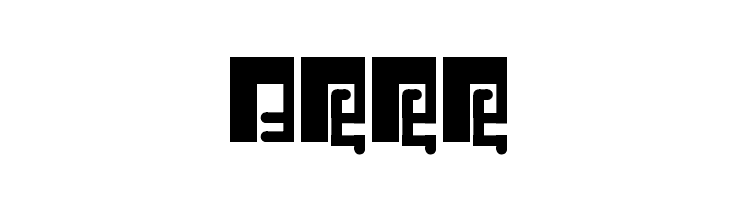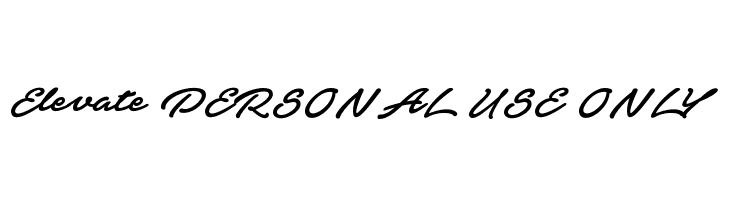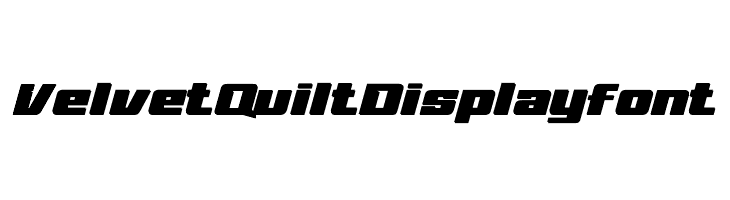
A display font made up of illustrated human faces for each character.
A decorative and artistic font with intricate patterns and whimsical illustrations.
A bold, brushstroke font with a textured, hand-painted appearance.
A decorative cursive font with elegant swirls and flourishes.
A playful, tall, and narrow font with rounded edges and consistent stroke width.
A decorative and eclectic font with unique, artistic character designs.
A bold, dynamic script font with a lively handwritten style.
A modern, geometric font with rounded, uniform characters.
A modern, pixelated font with bold, segmented characters ideal for tech and digital themes.
A bold, modern font with a slab-sans style and italicized small caps.
A playful, handwritten font with tall, narrow letters and smooth curves.
A whimsical and playful font with bold, irregular letterforms and swirling embellishments.
A bold, geometric font with blocky, outlined characters.
A bold, geometric font with a modern and artistic style.
A graceful and elegant script font with fluid, continuous strokes.
A bold, angular, and oblique font with a futuristic and dynamic style.
A playful, hand-drawn font with doodle-like patterns and a whimsical style.
A bold, geometric font with a futuristic and cohesive design.
A playful, rounded font with smooth curves and a friendly, approachable style.
A bold, geometric outline font with a modern, industrial style.
A modern, monospaced typeface with a geometric and minimalist design.
A bold, artistic font with a cut-out style and high contrast, ideal for impactful designs.
A bold, flowing script font with a modern, handwritten style.
A classic serif font with elegant strokes and high readability.
A sleek, modern, condensed italic font with dynamic angles.
A playful, informal handwritten font with thin, uneven strokes.
A collection of decorative feminine and beauty-themed icons.
A whimsical, decorative font featuring playful, vintage-style illustrations of little people.
A refined, light, semi-condensed serif font with an elegant italic style.
设计师偏爱 WYSIWYG, RodgauHeads, Agustus Merdeka, Decadance Cursiv and Christmas Light,因为其造型干净、适用范围广—— 从品牌识别到落地页、海报都能胜任。